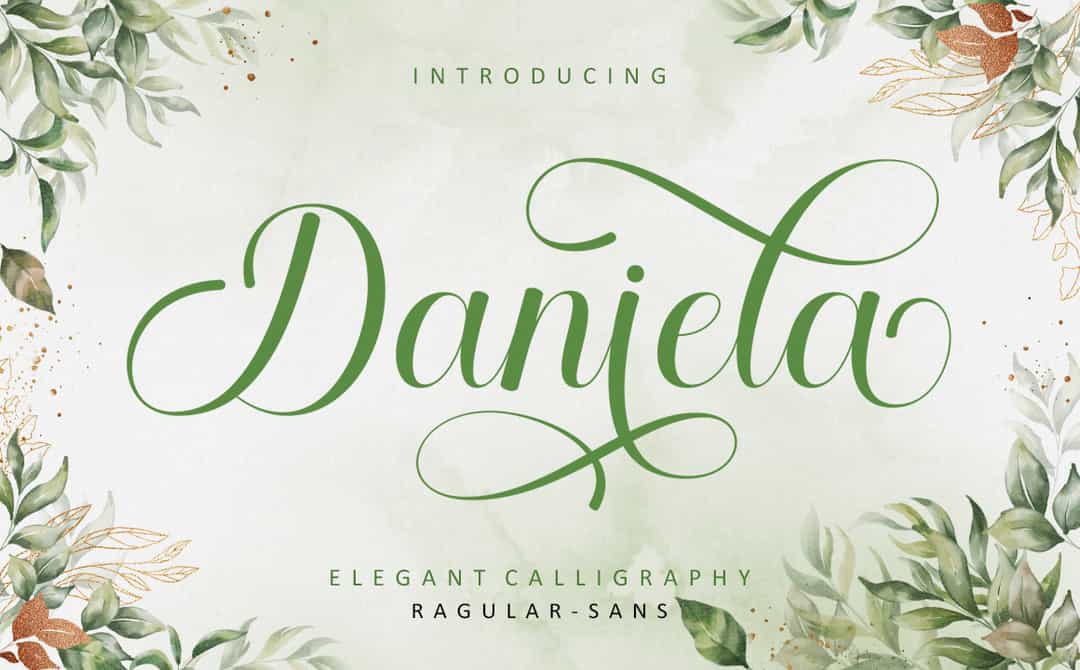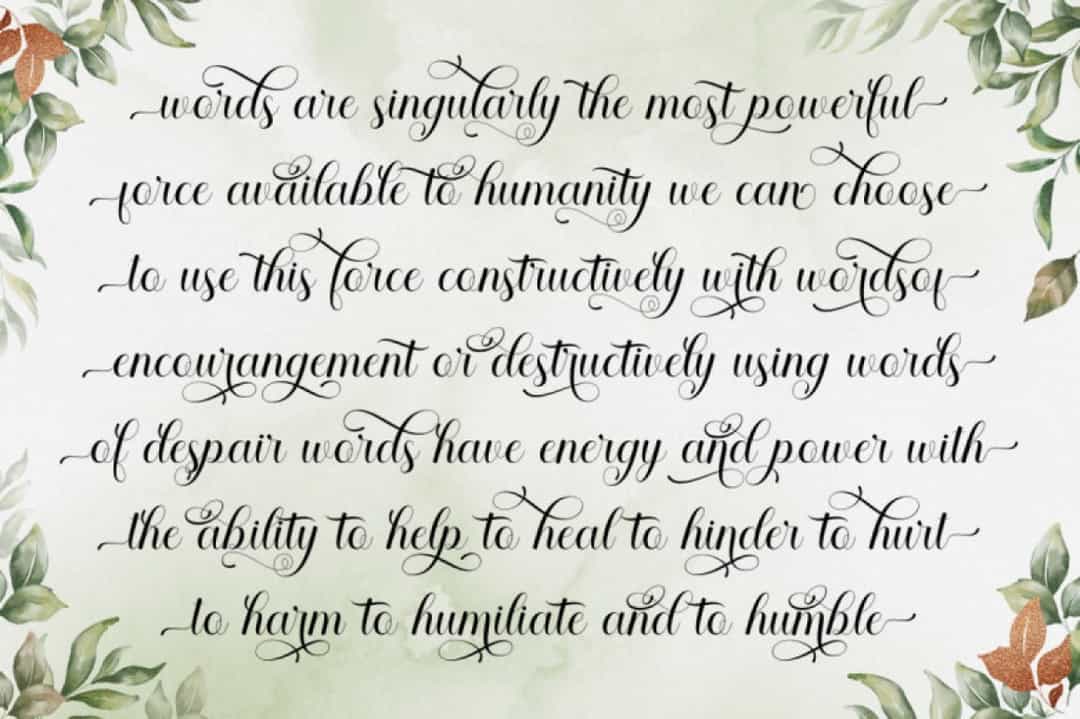
Discover Daniela Font, part of the Calligraphy collection—a versatile and unique font perfect for adding a personal touch to your projects. Download it for free and enjoy crafting designs with style, from invitations to social media posts. This font is available exclusively for personal use, giving you the freedom to create without limits. Unlock your creativity with Daniela Font today!
Daniela font is an exquisite duo (script and sans-serif). With PUA encoding, Daniela allows access to its luxurious glyphs & ligatures! Daniela can add an elegant and sophisticated feel to your design projects!